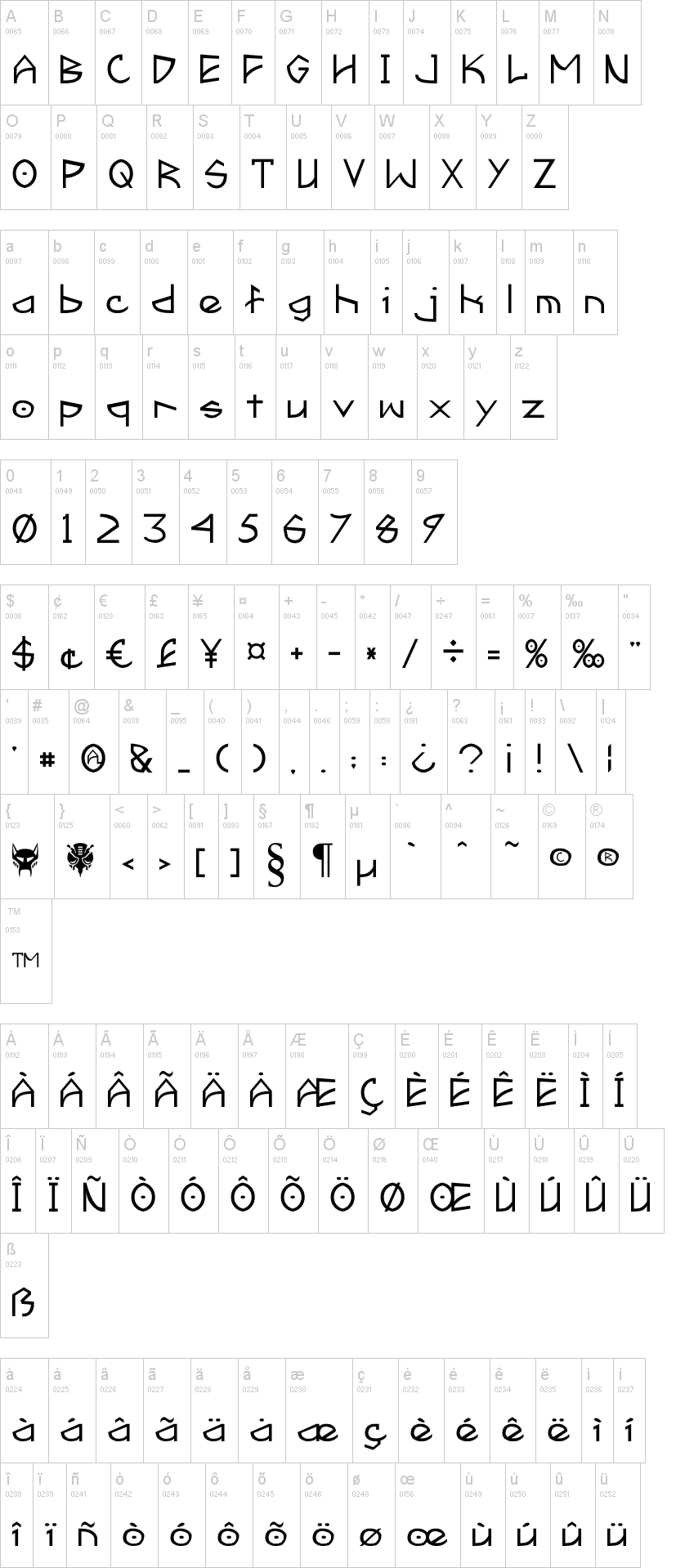
Fractyl Italic.otfFractyl Bold.otfFractyl Bold Italic.otfNote of the authorThis decorative typeface used for the Predacons' speaking bubbles in the BotCon "Ground Zero" comic in 1997. Includes full alphabet, extended characters, and Euro. Includes bold and italic versions.